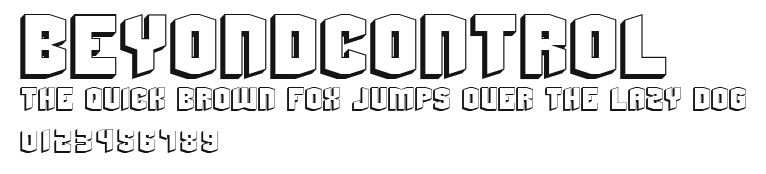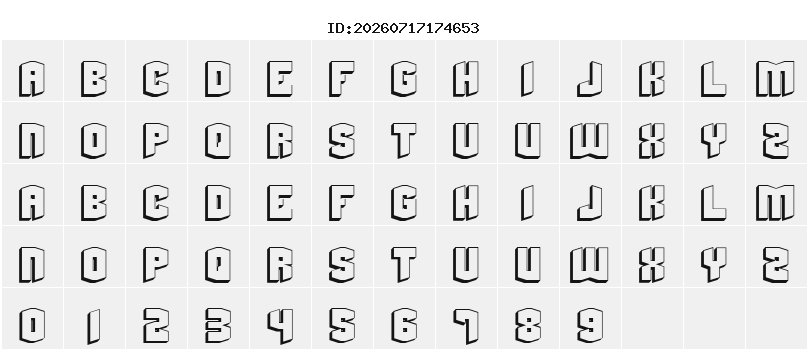
BeyondControl Preview
• Font Name: BeyondControl
• Font ID: BeyondControl
• Full Font Name: BeyondControl
• PostScript Name: BeyondControl
• Character Count: 76
About BeyondControl.ttf
BeyondControl.ttf is a modern, elegant sans-serif font designed for ultimate readability and visual harmony. Perfect for branding, headlines, web design, and print materials.